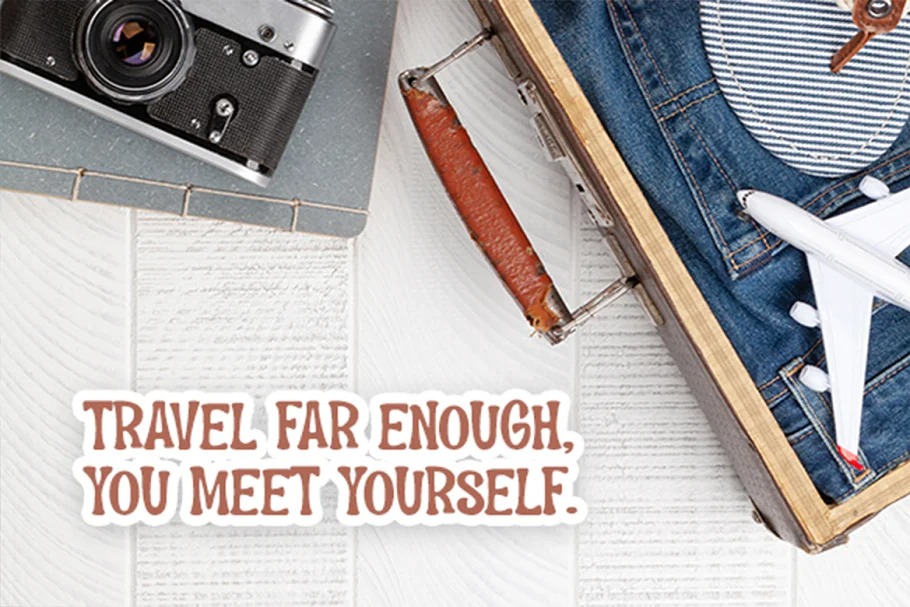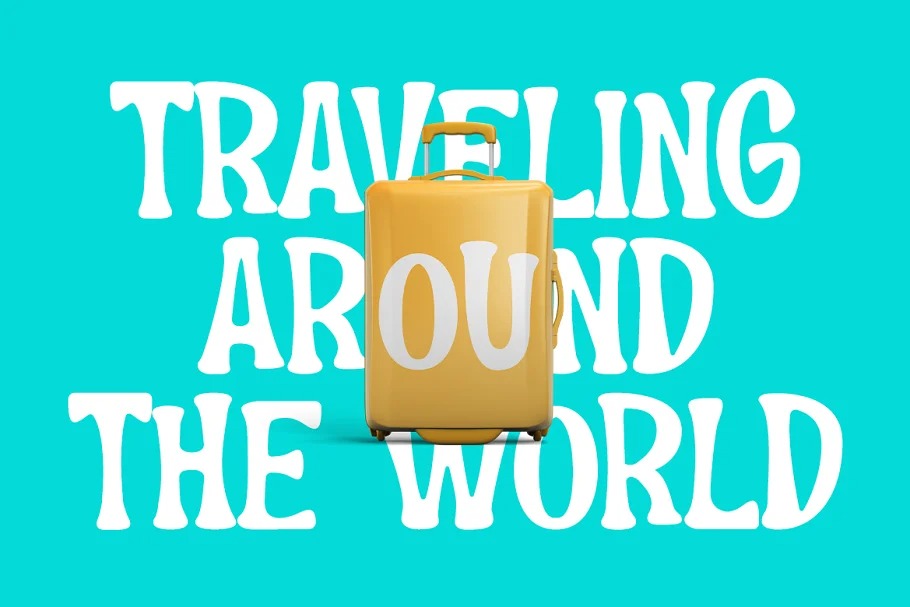
Travelista Display Font is an old style font made carefully handcrafted come-up with high quality vintage font. Suit perfect for traveling books market, vacation event posters, movie titles, youtube covers, youtube thumbnails, social media page covers, and so on…
Travelista